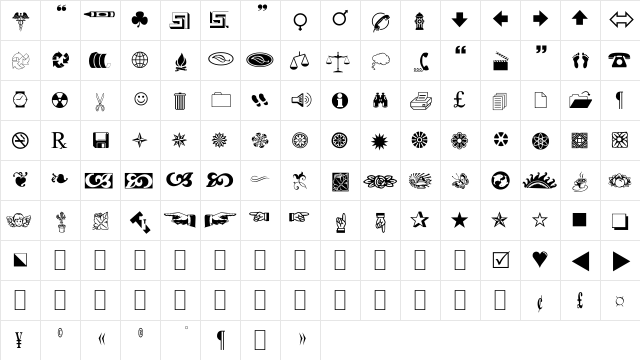
BD Symbols Regular
Design Context for BD Symbols Typeface
BD Symbols is a composed and adaptable typeface that performs quietly and consistently across a wide range of design contexts. Its bold stroke weight gives it real presence on the page.